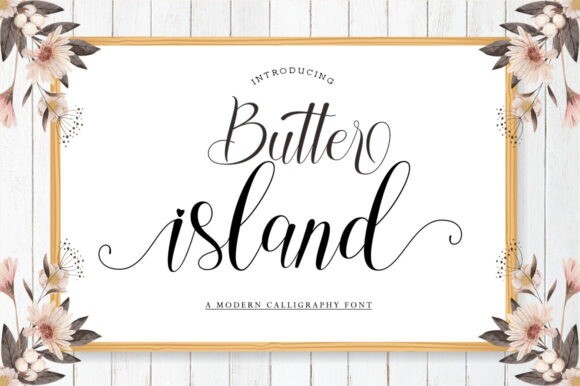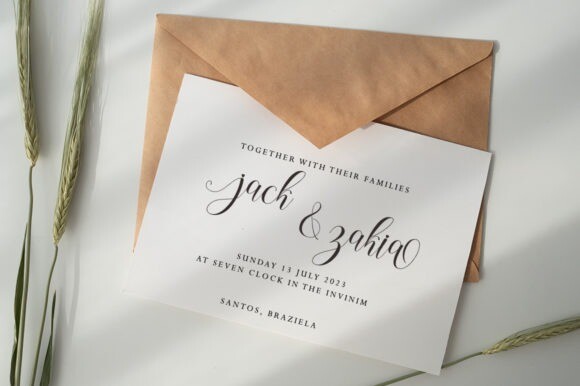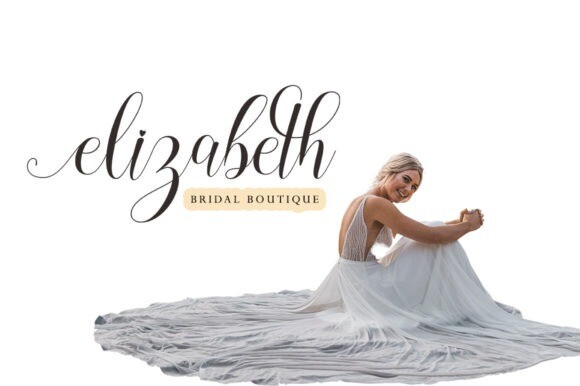
Butter Island Font
Butter Island is a distinct and graceful script font. Fall for its ravishing style and use it to create gorgeous designs. This font is PUA encoded which means you can access all glyphs and swashes with ease!